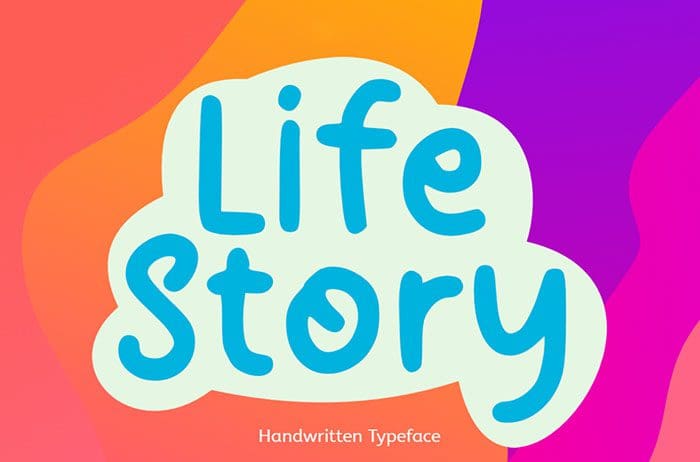
Life Story Handwritten Font
Life Story handwritten font, lovable typeface. They will look cute and friendly across a wide range of craft projects. Fall in love with its casual and playful charm! This font is available only for personal use. Created this font by Epiclinez. More free Fonts. Thanks!